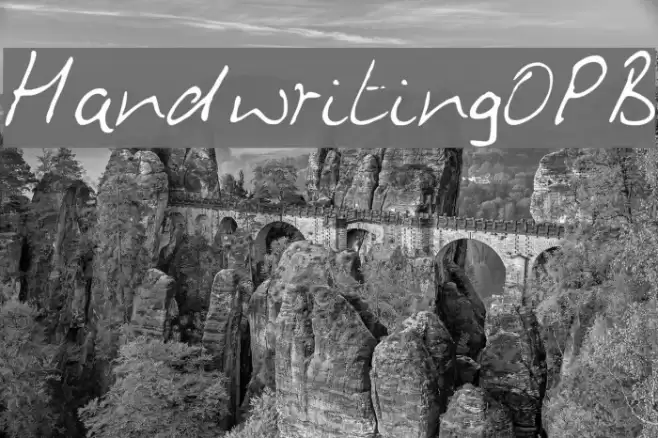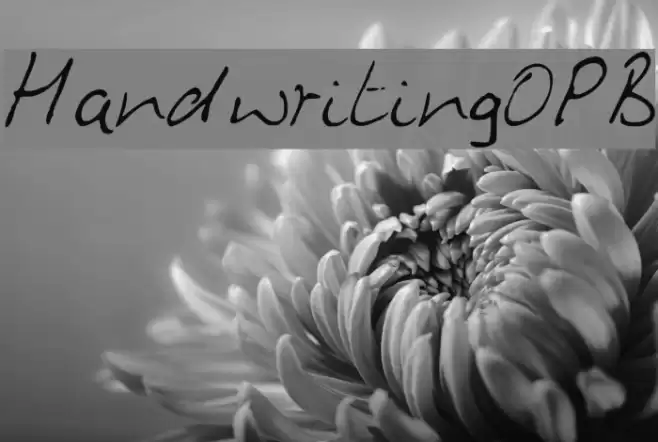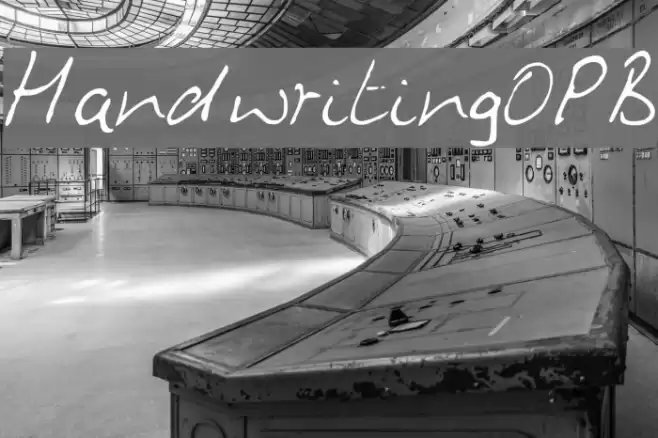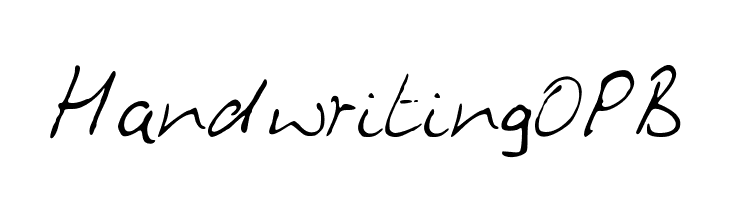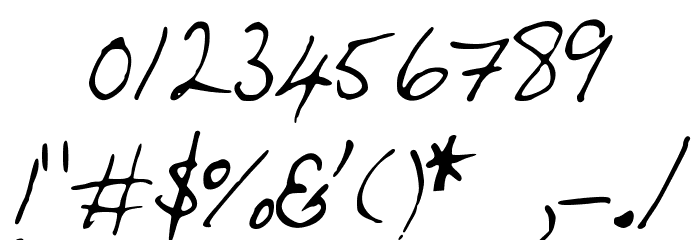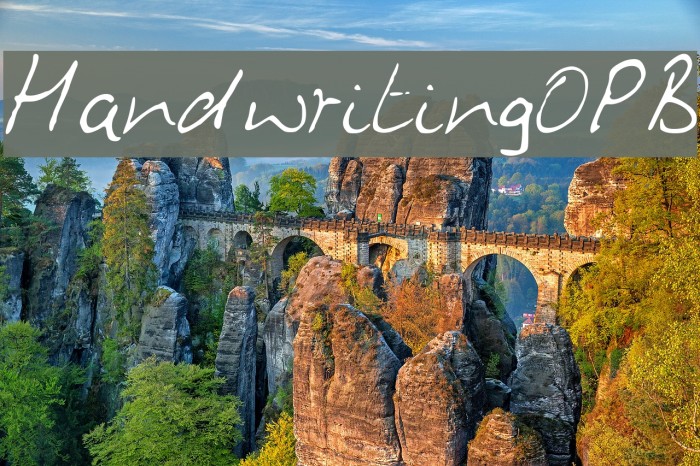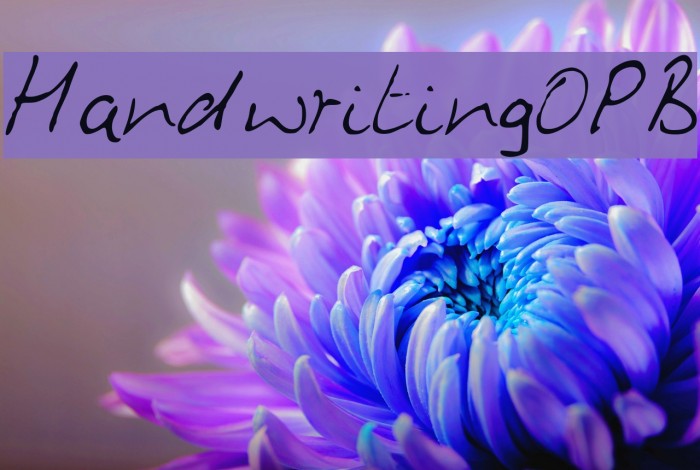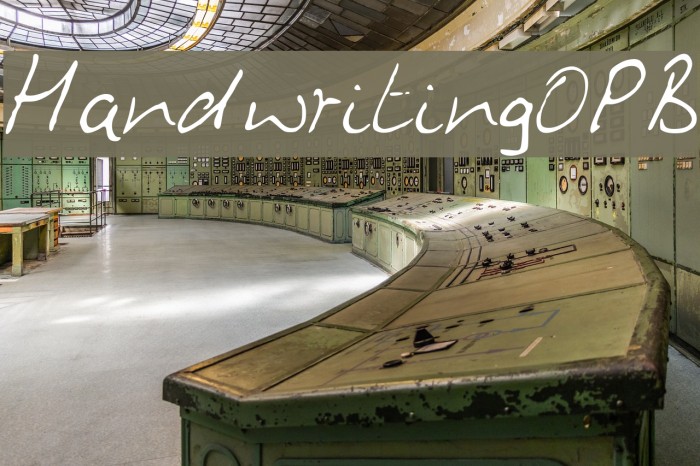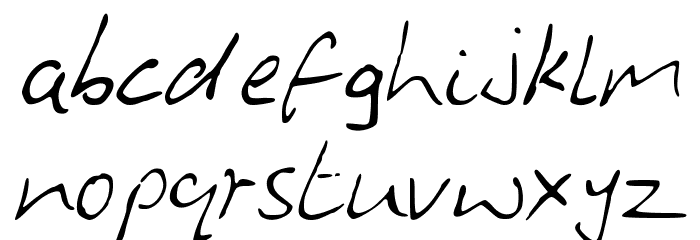
HandwritingOPB Font
HandwritingOPB Description
This font features a dynamic and fluid handwritten style, characterized by its natural and spontaneous appearance. The letters are slightly slanted, giving an informal and personal touch. The strokes vary in thickness, adding to the organic feel of the handwriting. Uppercase letters are bold and prominent, while lowercase letters maintain a consistent flow. Numbers and special characters are integrated seamlessly, maintaining the overall aesthetic. This font captures the essence of personal handwriting, making it suitable for projects that require a human touch.
A fluid and dynamic handwritten style with natural, varying strokes from Uncategorized fonts.
- Proposed Projects: Ideal for personal notes, invitations, greeting cards, and creative projects that require a personal touch.
- Overall Style: Casual, Personal
- Use Case: Invitations, Personal notes, Creative projects